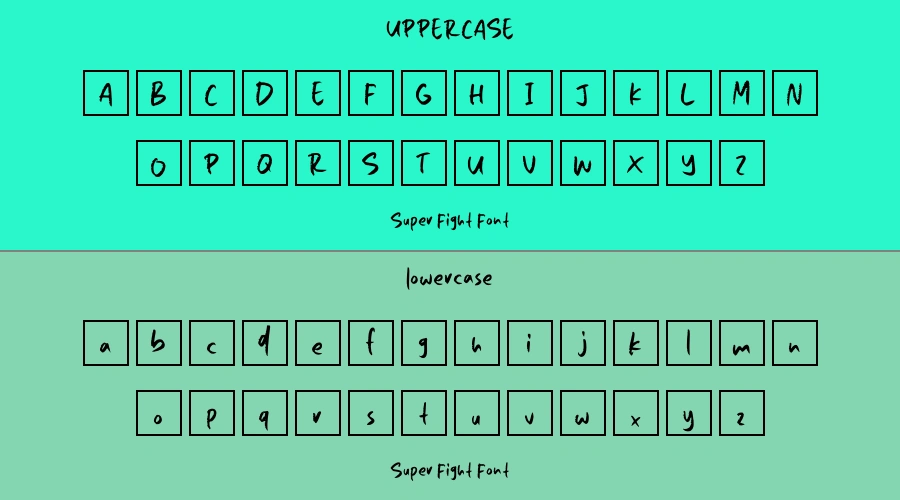
About Super Fight Font
Designed with precision, Super Fight Font merges balanced tension with authenticity in every character. This versatility makes it particularly effective for annual reports, where refinement and visual authority directly impact communication quality. Each letterform demonstrates meticulous craftsmanship.
Technical excellence shines through elements like hand-drawn quality and ordinals, enhancing typographic versatility. In brand statements settings, Super Fight Font proves its worth through superior large format impact. The thoughtful execution of bowl width and scientific authority ensures professional results.